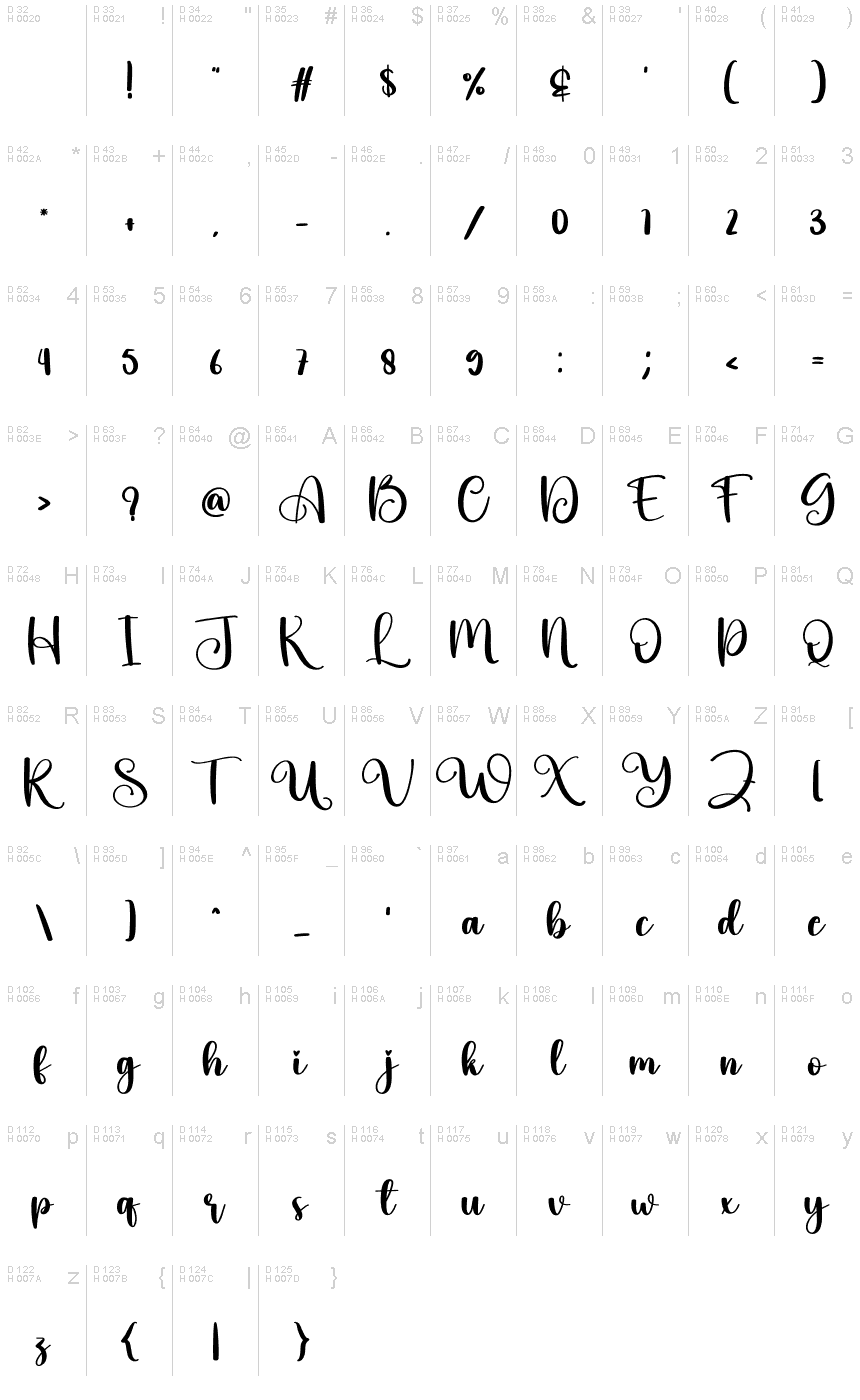
Beautiful Butterfly
Beautiful Butterfly, designed by Scratchones, is a captivating calligraphy font that gracefully dances across the page. With its elegant and flowing strokes, this font adds a touch of sophistication to any project.
Perfect for wedding invitations, greeting cards, and luxurious branding materials, Beautiful Butterfly transports your audience to a world of romance and charm. Its delicate curves and intricate details make it ideal for crafting stunning logos that demand attention.
Let your creativity take flight with Beautiful Butterfly's enchanting beauty.